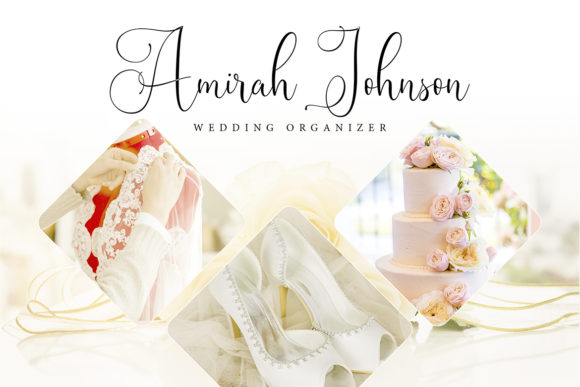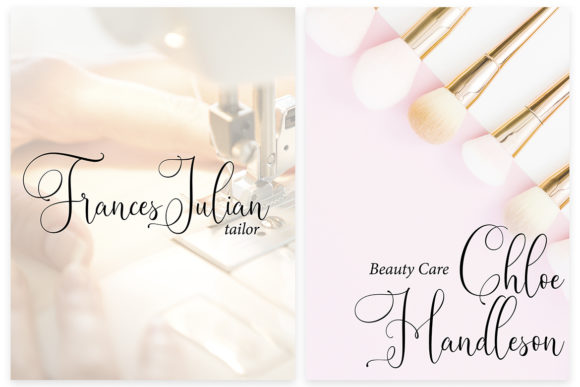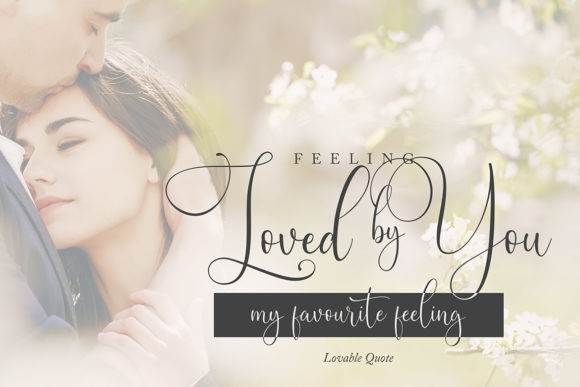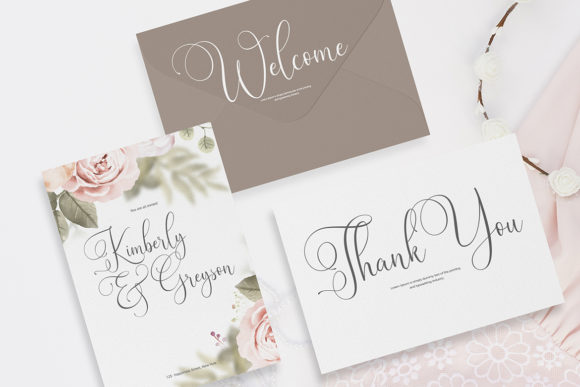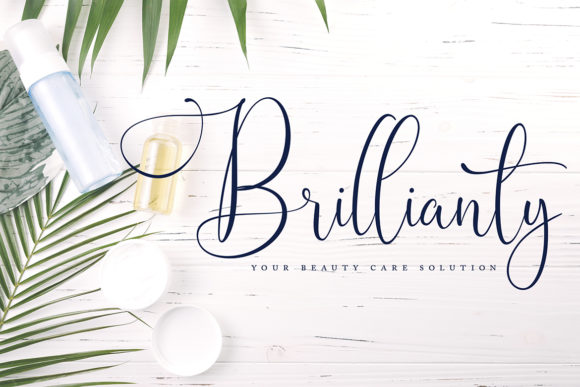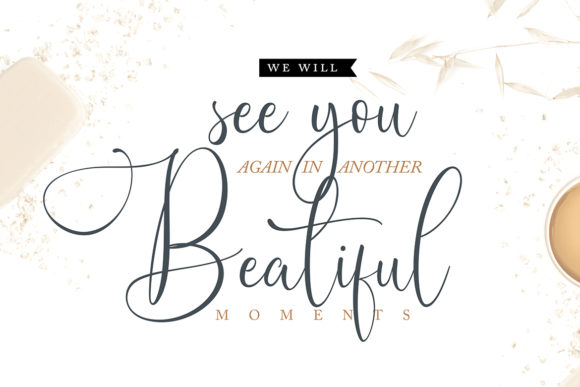
Introduction to Rendezvouws Font
Have you ever been brainstorming for a creative project and suddenly a spark of inspiration hits you? You see a beautiful design concept in your mind, but you can’t quite put it into words. That’s where the perfect design resource comes in – a font that can elevate your idea and make it stand out. Meet the Rendezvouws Font, a high-quality font that combines elegant swashes and a contemporary approach to design.
As a designer, you know how crucial it is to have the right tools to bring your vision to life. The Rendezvouws Font is a valuable addition to any design arsenal, offering a unique blend of style and sophistication. Whether you’re working on a free download or a paid project, this font is sure to make your design shine with its transparent background and versatility.
Key Features of Rendezvouws Font
- High-quality, versatile design ideal for creative projects requiring a unique touch.
- Unique, creative design elements that can be used to add a personal touch to various design projects.
- Perfect design resource for graphic designers, artists, and creatives working on a wide range of projects, from branding to advertising.
Honest Review: Rendezvouws Font
As a designer, I’m always on the lookout for unique and high-quality design resources to elevate my creative projects. Recently, I came across the Rendezvouws Font, and I must say it’s a gem.
Here’s what works well: ✨ The font’s elegant and sophisticated design makes it perfect for formal or professional projects, such as business cards, brochures, or even wedding invitations. The high-quality design ensures that your text stands out, adding a touch of class and sophistication to your work. Additionally, the font’s transparent background makes it easy to work with, allowing for seamless integration with any design.
- High-quality design perfect for formal or professional projects
- Elegant and sophisticated design
- Not suitable for projects requiring a playful or casual tone
Rendezvouws Font is a high-quality design resource perfect for creative projects. This free download offers a unique and stylish font that can elevate your designs.
Rendezvouws Font is perfect for:
- Blogging and article design
- Business card and brochure design
Yes, Rendezvouws Font is designed to be high-quality and suitable for use in high-resolution designs. The font includes detailed vector shapes and a clear, legible design, making it perfect for use in print materials, signage, and other high-resolution applications. Additionally, the font’s transparent background allows for seamless integration into complex design compositions.